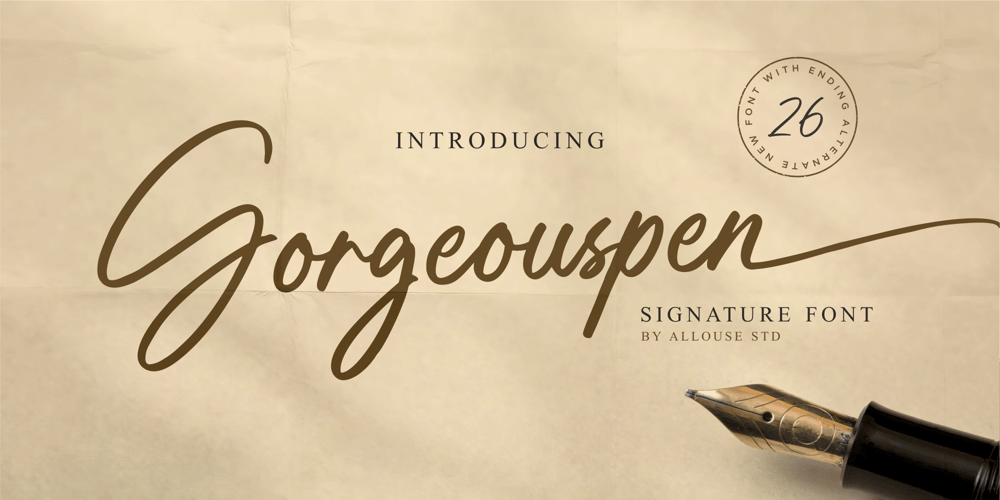
Gorgeouspen Font Family was designed by Fachrizal Yusuf and published by Allouse Studio. Gorgeouspen contains 1 styles and family package options. Proudly Presenting, Gorgeouspen A Elegant Signature Font.Gorgeouspen is perfect for any titles, logo, product packaging, branding project, megazine, social media, wedding, or just used to express words above the background.Gorgeouspen also come with Multi-Lingual Support.Enjoy the font, feel free to comment or feedback, send me PM or email. Thank You!